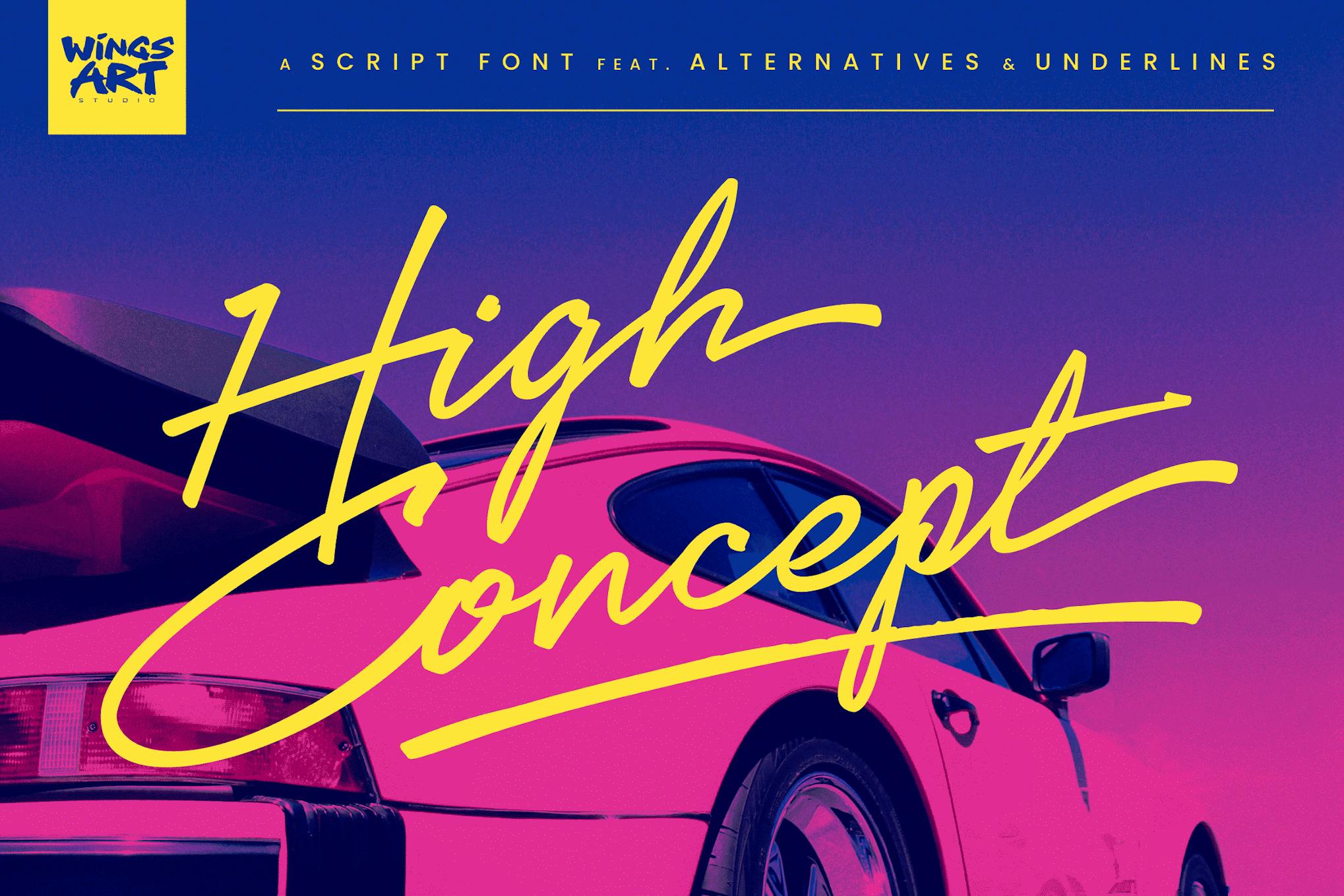
High Concept- A Slick Marker Pen Script Font
High Concept- A Slick Marker Pen Script Font is perfect for modern logo design, contemporary branding projects, sleek advertising campaigns, stylish social media graphics, urban poster design, innovative packaging solutions, creative presentation graphics, dynamic headline typography, and sophisticated script applications.
What makes High Concept- A Slick Marker Pen Script Font exciting is its perfect fusion of marker pen authenticity with refined script elegance that creates a sophisticated urban aesthetic. This dynamic typeface features smooth marker flows, confident stroke variations, and sleek letterforms that capture the spontaneous energy of marker lettering while maintaining professional polish and contemporary appeal. The font's bold confidence and modern sophistication make it ideal for brands that need to communicate innovation, creativity, and urban edge through typography that feels both authentic and cutting-edge.
High Concept- A Slick Marker Pen Script Font family includes multiple stylistic variations: Regular, Bold, Light, Condensed, Extended, and Clean versions. Each style maintains the distinctive marker script aesthetic while offering different stroke weights and refinement levels, providing designers with versatile tools for creating cohesive yet dynamic typographic systems and contemporary script applications.
Design professionals value High Concept- A Slick Marker Pen Script Font for its versatility and contemporary appeal. The font's smooth flows and confident strokes work beautifully in both digital applications and large-format print designs. Its modern character appeals to audiences seeking innovation, creativity, and sophisticated urban aesthetics.
The comprehensive character set includes script alternates, stylistic ligatures, and extensive multilingual support that enhances the marker aesthetic. High Concept- A Slick Marker Pen Script Font Free Download enables creative teams to experiment with layering techniques, color applications, and innovative script combinations before purchase.
Whether used for startup branding or contemporary creative campaigns, High Concept- A Slick Marker Pen Script Font consistently delivers sophisticated script typography that resonates with modern audiences seeking authentic creativity and polished urban design expression.